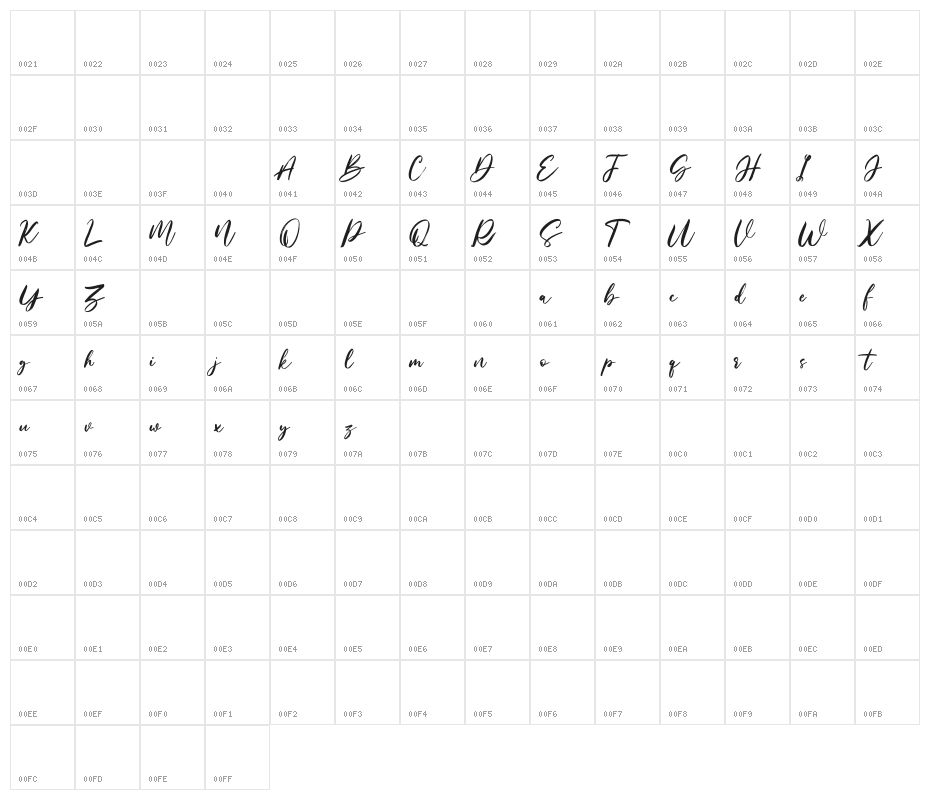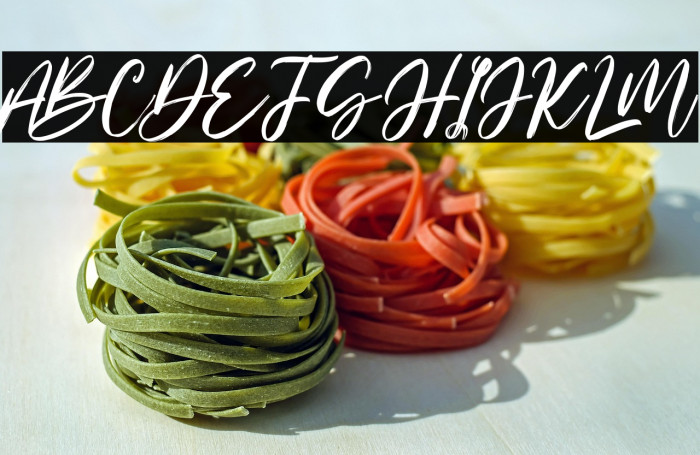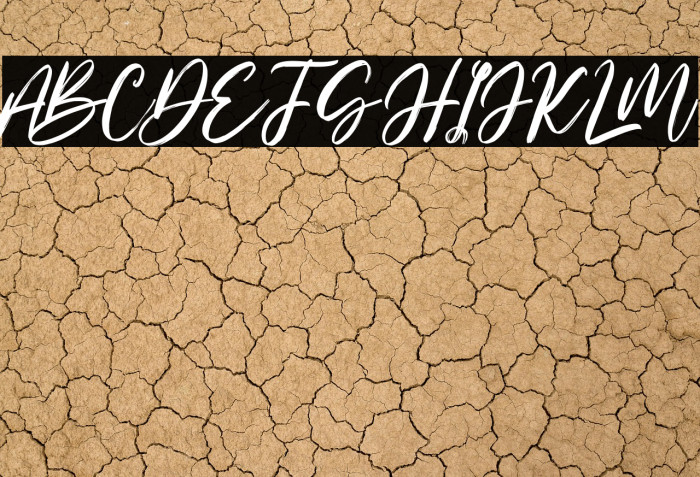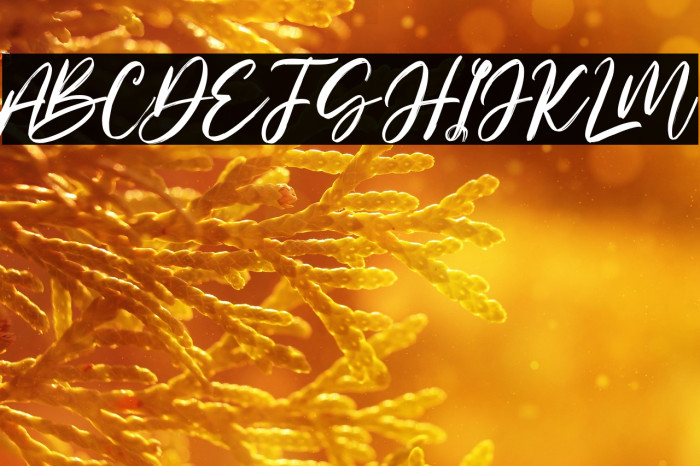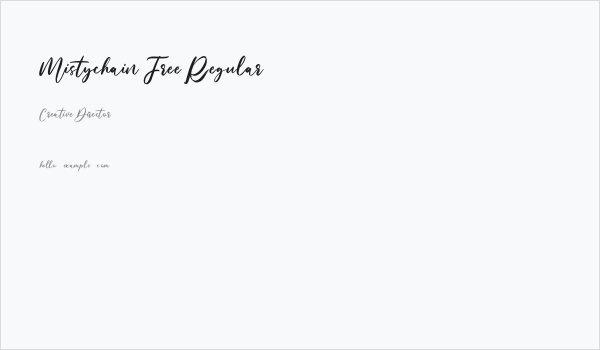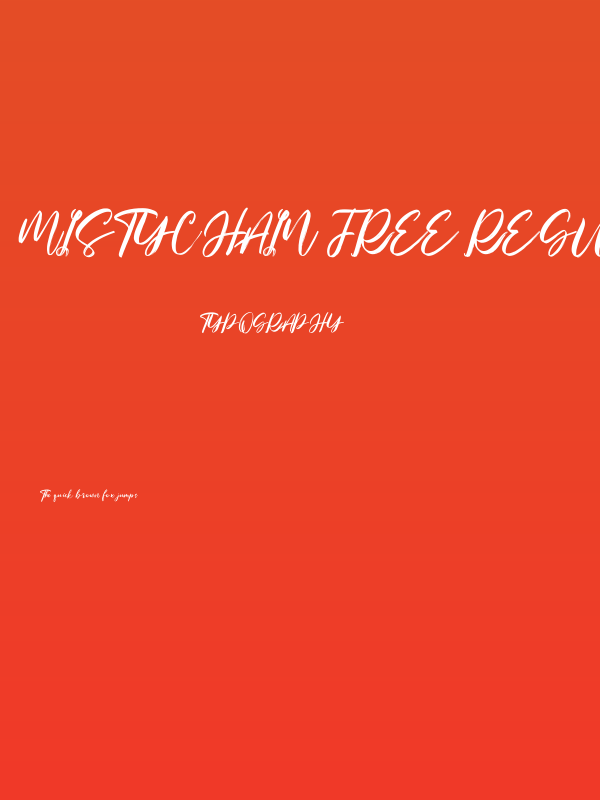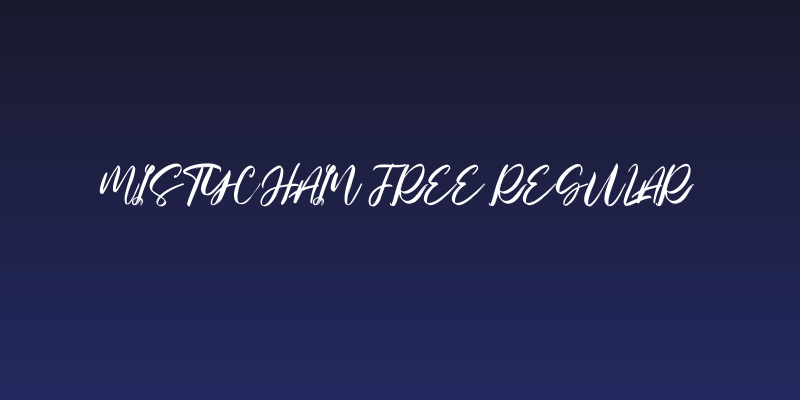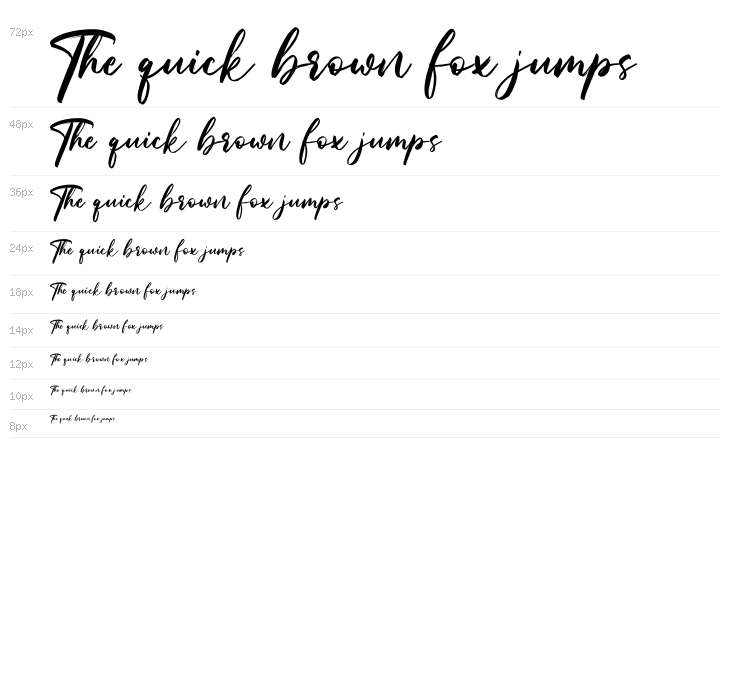
Mistychain Free Regular Font
Mistychain Free Regular Description
This font features a flowing, cursive style that exudes elegance and sophistication. The letters are interconnected with smooth, sweeping strokes, giving it a handwritten appearance. The uppercase letters are bold and prominent, while the lowercase letters maintain a consistent fluidity. The overall design is both graceful and dynamic, making it suitable for projects that require a personal touch. The font's organic curves and loops add a sense of movement and liveliness, making it ideal for creative and artistic applications.